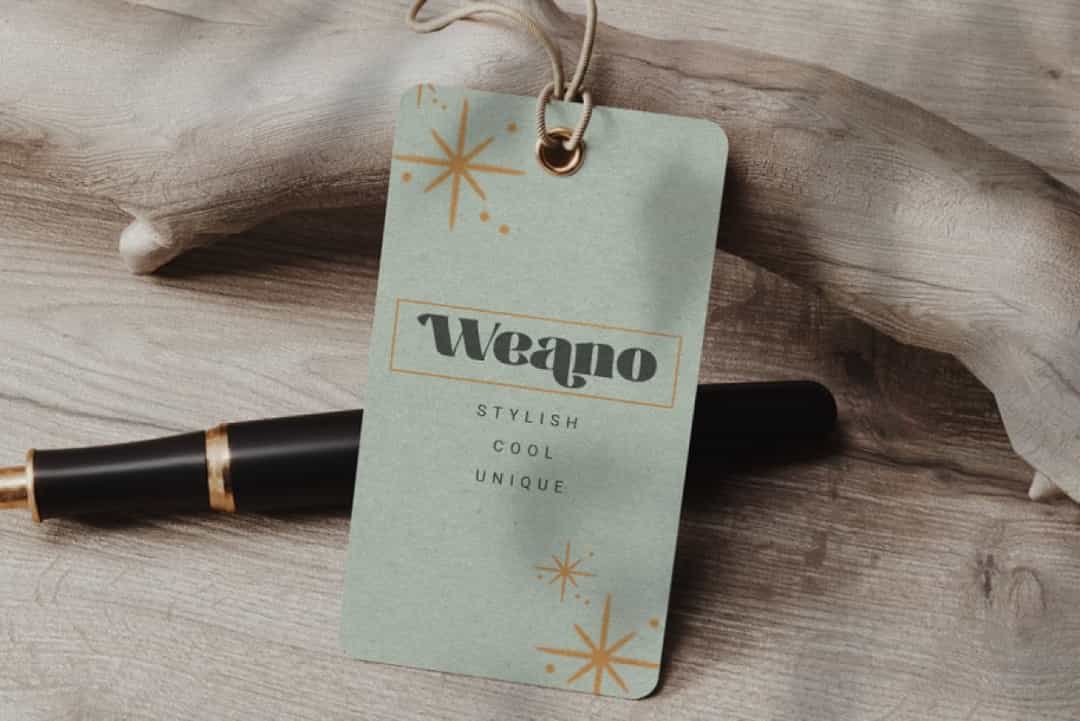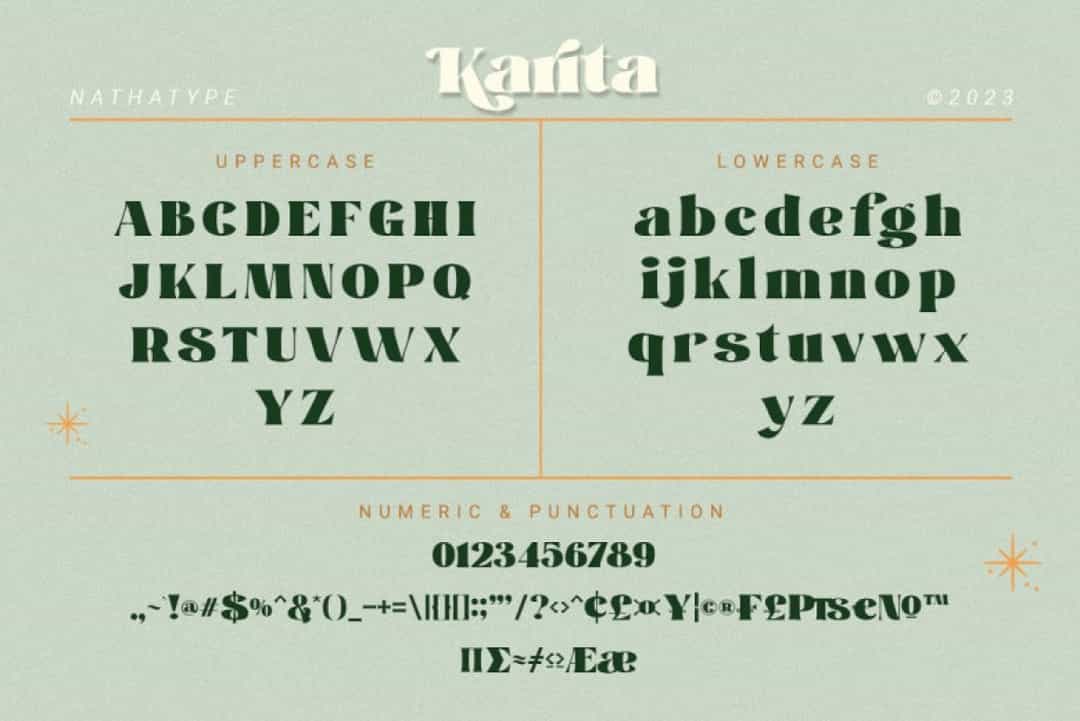
Karita is a timeless, classic show serif font designed to add value to products or brands being promoted. The font stands out among others and creates striking, elegant impressions which attract clients. The continuous elements along the letter edges draws your eyes along them harmoniously as serif characters of fonts play their role.